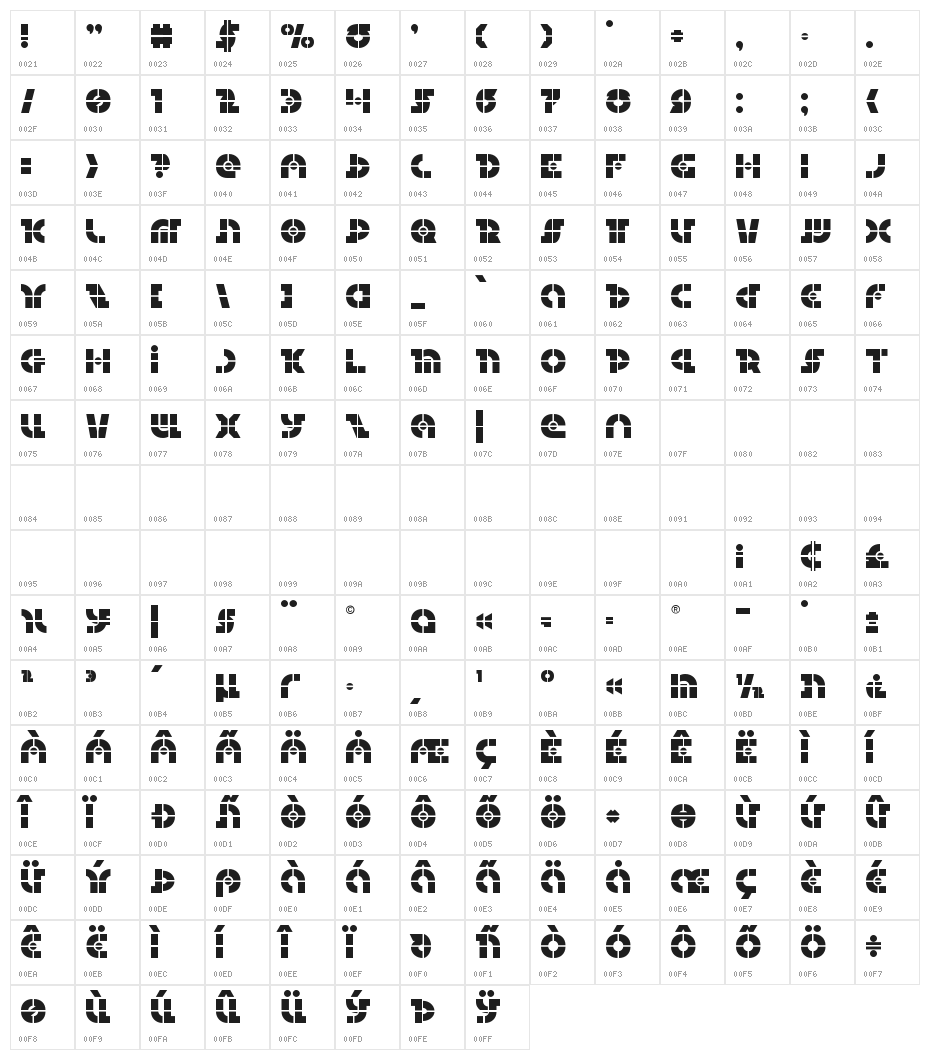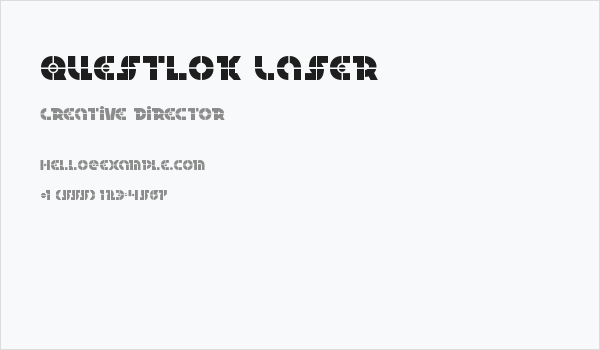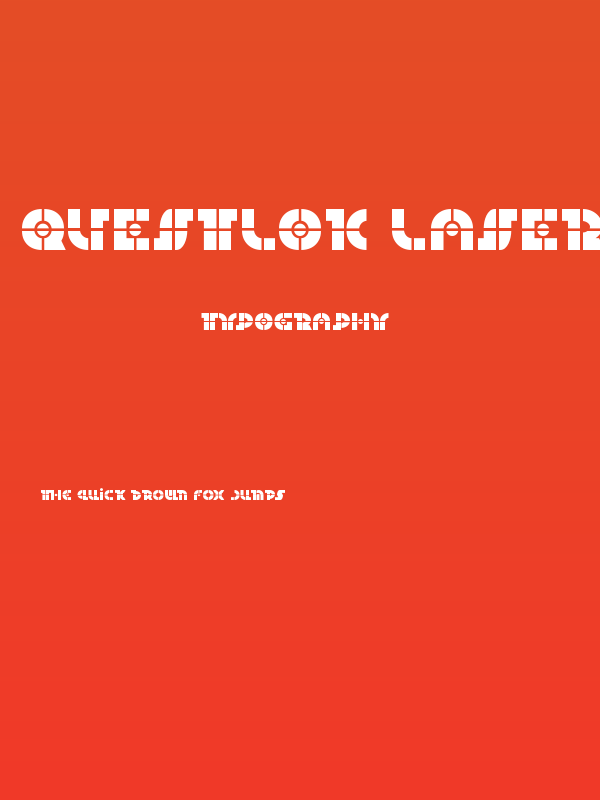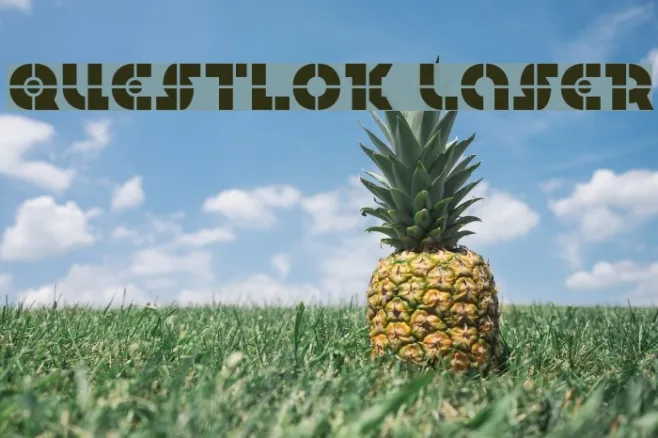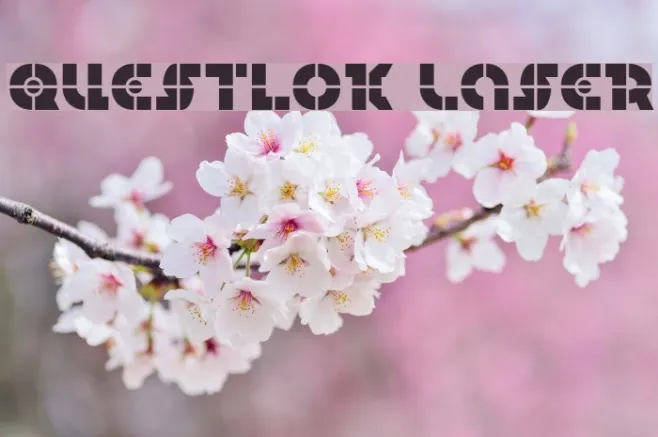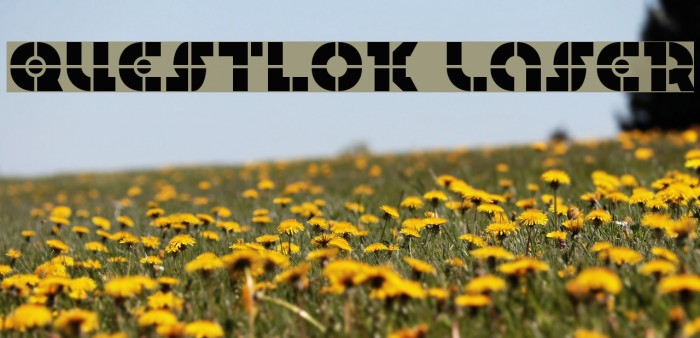
Questlok Laser Font
Questlok Laser Description
This font features a bold, futuristic design with a distinct geometric style. Each character is composed of solid, block-like shapes with circular cutouts, giving it a high-tech, industrial feel. The letters are uniform in width, creating a consistent and cohesive look across the alphabet. The font's unique design elements, such as the circular motifs and sharp angles, make it stand out as a display typeface. It is highly stylized, with a focus on symmetry and balance, making it ideal for projects that require a modern and edgy aesthetic. The numbers and special characters follow the same design principles, ensuring a seamless integration with the alphabet. This font is perfect for creating eye-catching headlines, logos, and branding materials that demand attention.
| Proposed Projects | Ideal for sci-fi themed projects, technology branding, video game titles, and futuristic posters. |